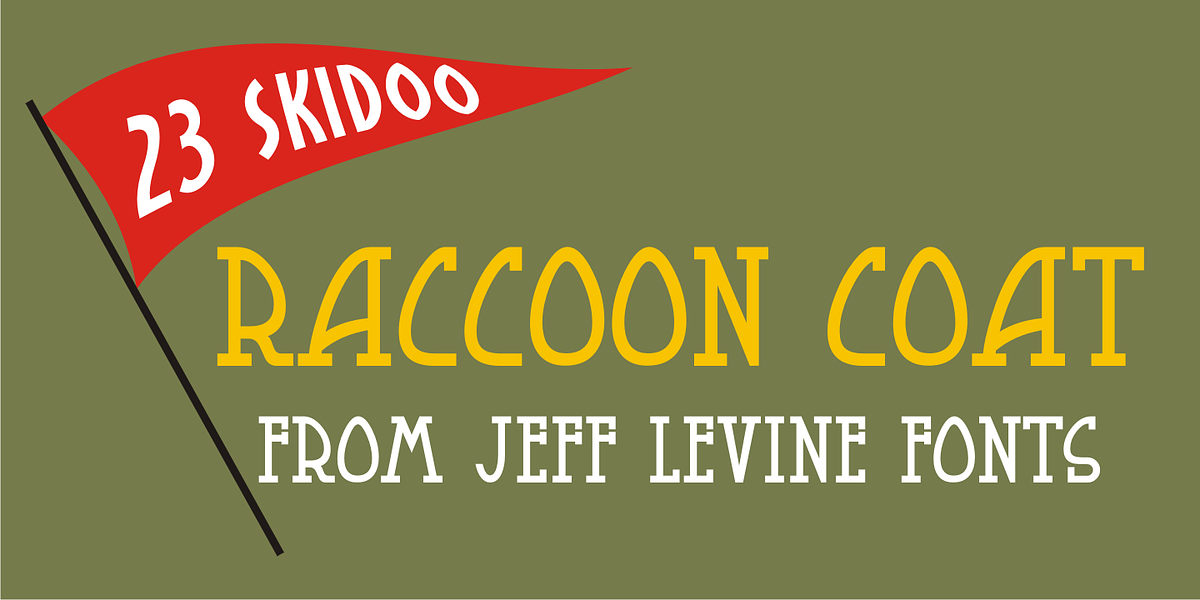
Raccoon Coat JNL
A piece of hand lettered sheet music from the era of the “Roaring Twenties” served as a model for Raccoon Coat JNL. It was a time of Prohibition, bathtub gin, flappers and college boys decked out in beanies and raccoon coats. College pennants, ukuleles and “23 Skidoo” were all part of the youth culture during this period; which gave us such dances at the Charleston, the Black Bottom and the Lindy Hop.